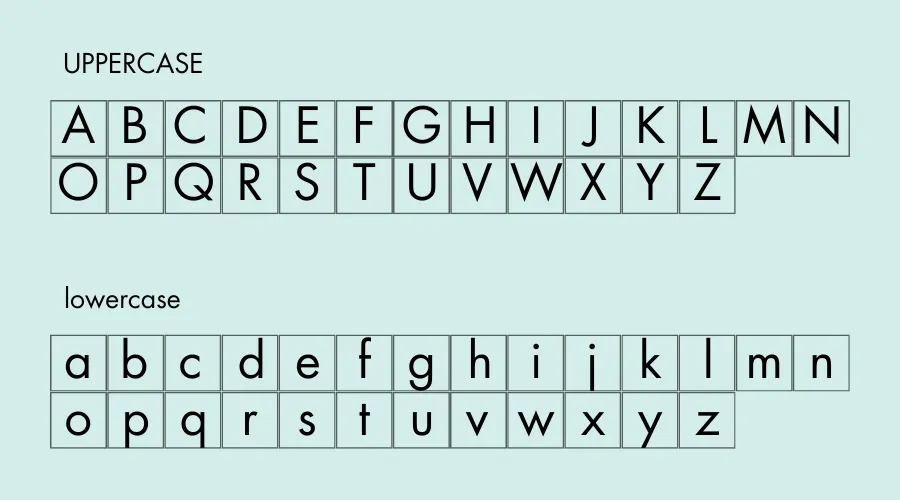
AG Futura Font
About AG Futura Font
The AG Futura Font was developed by Paul Renner and is under the category of the geometric sans serif texture family. It has a neat and straightforward texture look appearance that is also free for both operating systems Windows and Mac.
The subfamily of this typeface is regular and contains various types of weights and styles such as bold, italic, and regular. It includes characters such as uppercase letters, numerals, digits, symbols, and many more. It offers amazing qualities that many other types lack.